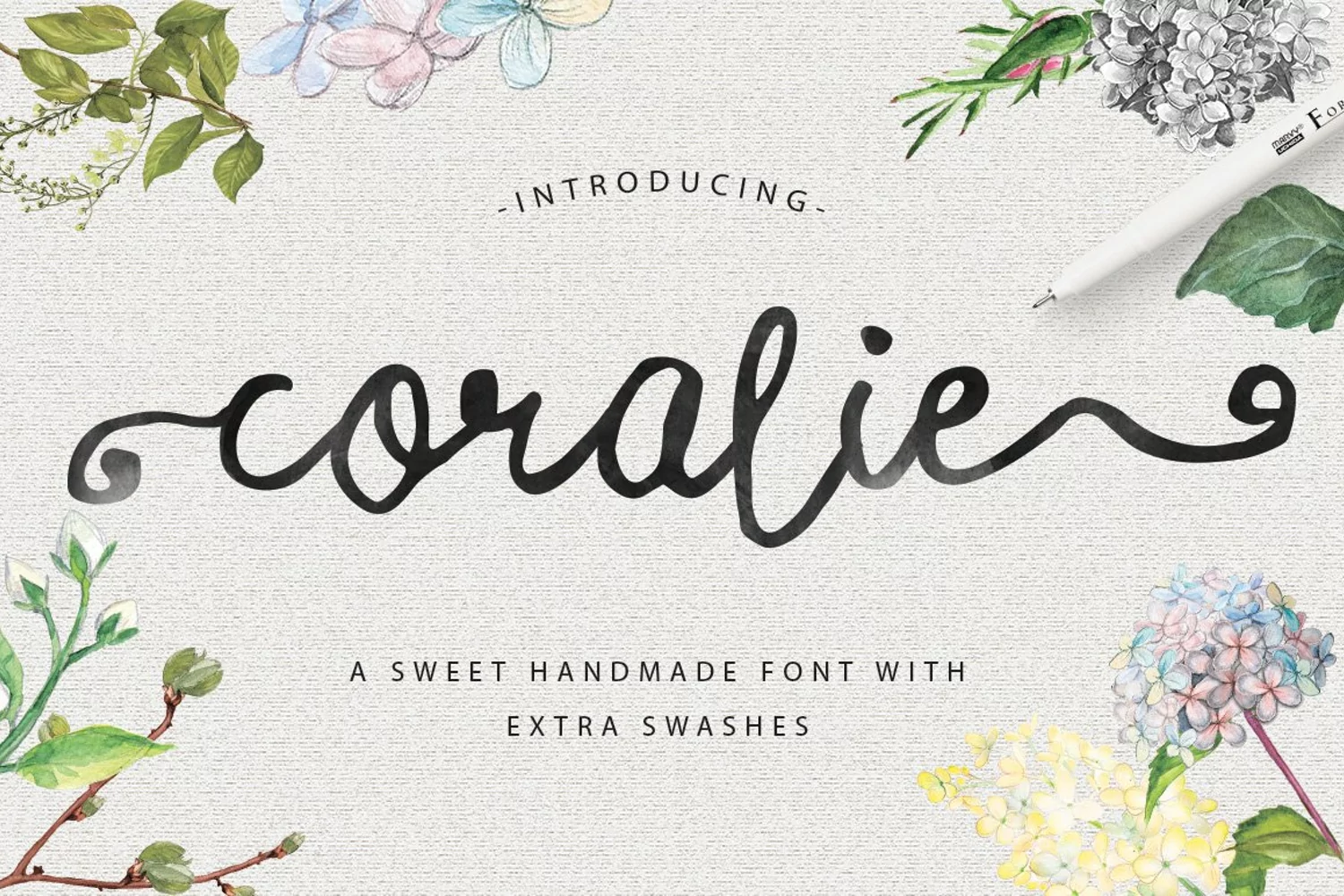
Introducing "Coralie Script Typeface"
Can be used for various purposes namely headings, logos, wedding
invitations, t-shirts, letterheads, signages, labels, news, posters,
badges etc.
- Swashes used in preview images are not alternates. However, vector swashes are included in the download file